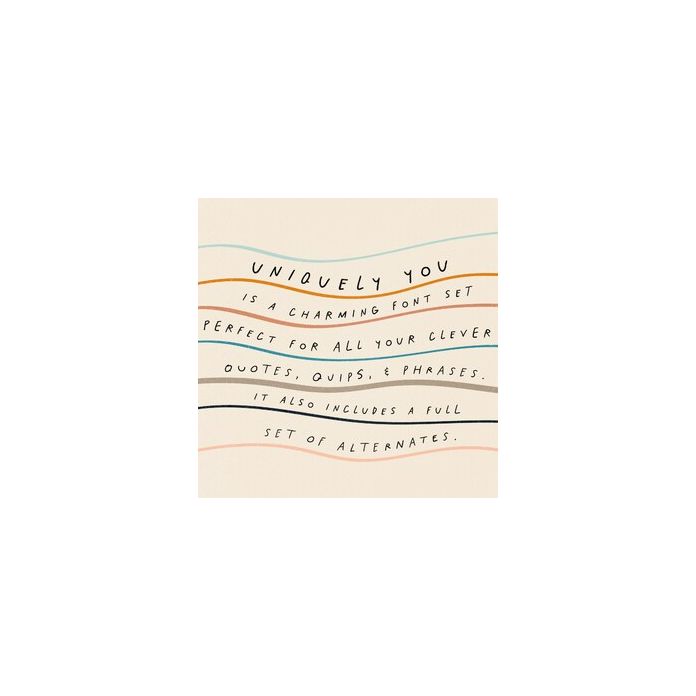
Uniquely You Font Family
Uniquely You is a playful, journal-style typeface that will help you stand out from the rest. Perfect for your quotes and instagram posts.